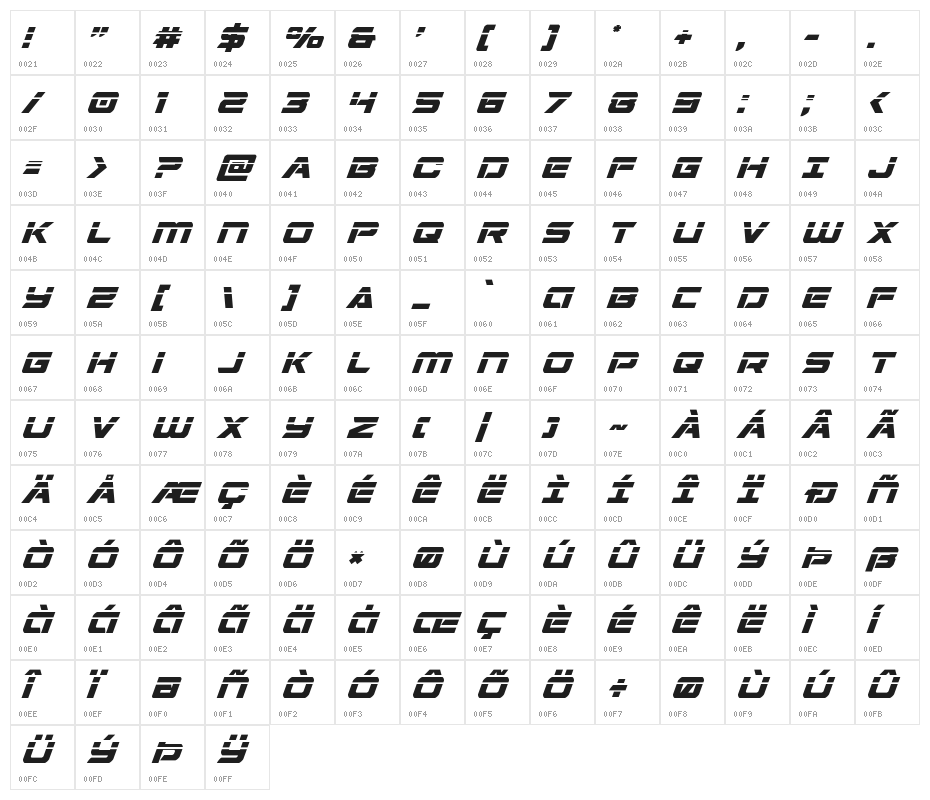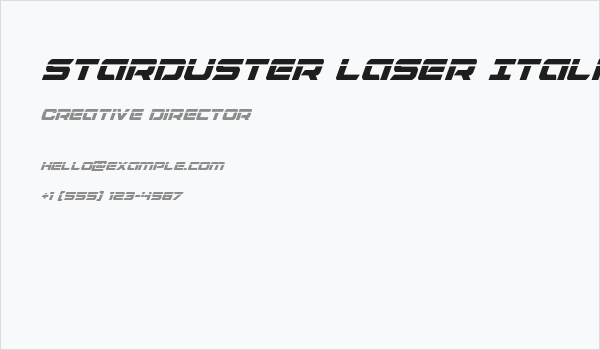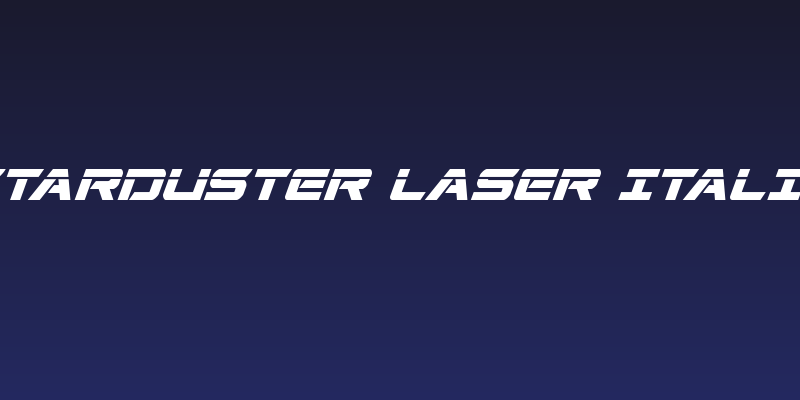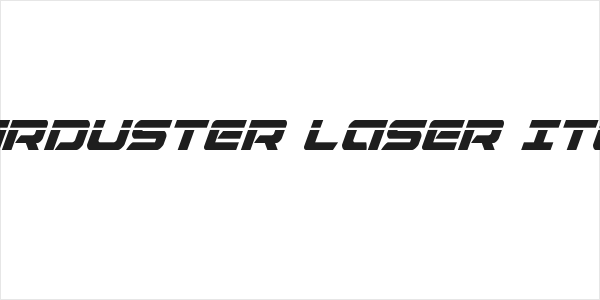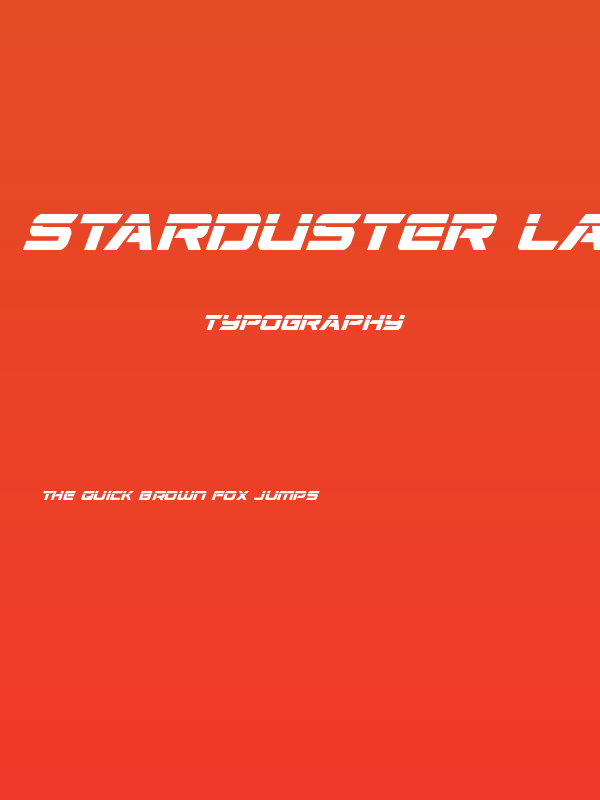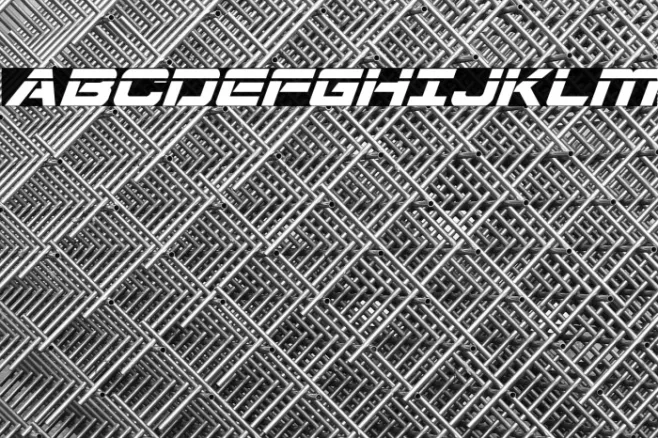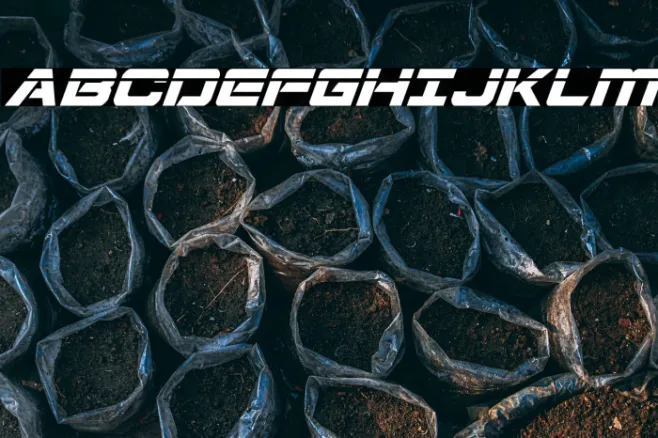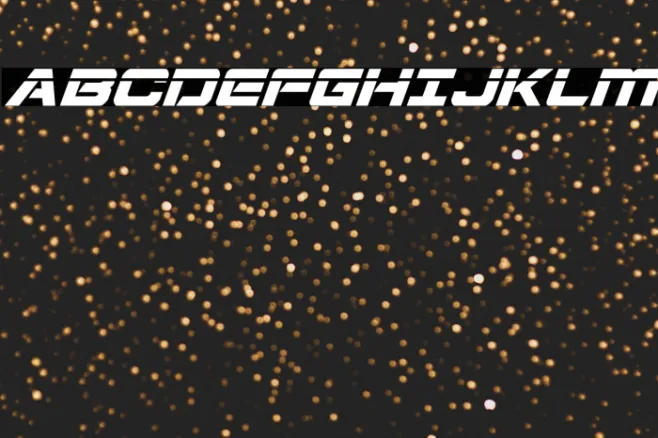
Starduster Laser Italic Font
Starduster Laser Italic Description
This font features a futuristic and dynamic design with sharp, angular lines and a forward-leaning italic style. The characters are bold and impactful, with a distinct geometric structure that suggests movement and speed. The uppercase and lowercase letters maintain a consistent style, while the numerals and special characters complement the overall aesthetic. The font's design is reminiscent of sci-fi themes, making it ideal for projects that require a modern and edgy look.
| Proposed Projects | Ideal for sci-fi themed designs, video game titles, movie posters, and branding that requires a modern, dynamic appearance. |